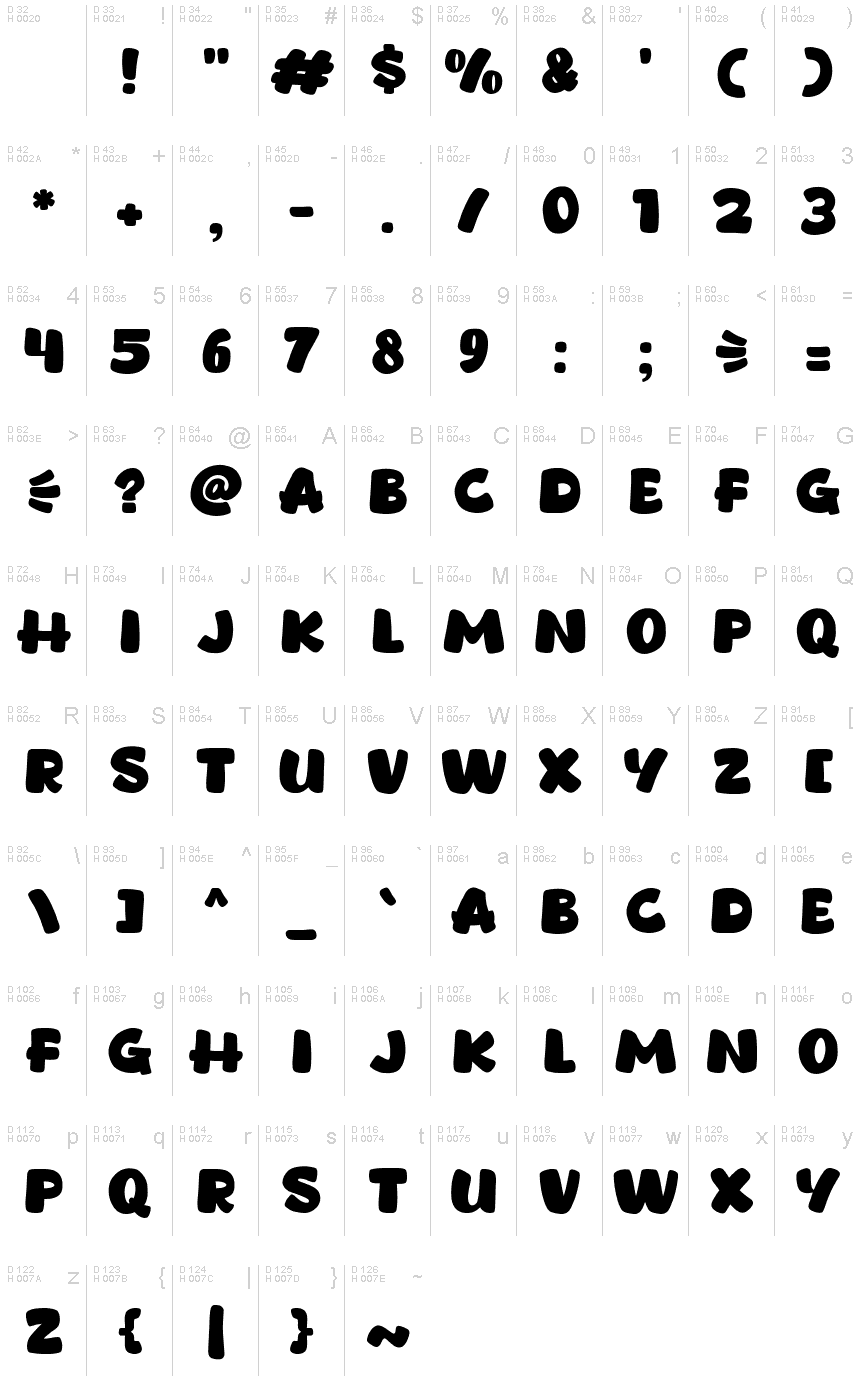
Cakeroll, designed by Khurasan, is an extra-bold display font that bursts with playful energy. Its cartoon style exudes a friendly and whimsical vibe, making it perfect for projects that aim to delight and engage. The font's rounded contours and hefty form lend it a tangible sweetness, reminiscent of delectable icing on your favorite baked treats.
Visually, Cakeroll's chunky letters are akin to soft pillows, offering a tactile aesthetic that can add depth and warmth to any design. Whether used in children’s books, animated movie titles, or branding for confectioneries or casual eateries, this font brings an element of fun without sacrificing readability.
With its charming appearance, Cakeroll stands out as an excellent choice for those seeking a typeface with personality and presence. It is sure to make any message pop off the page or screen and capture the imagination of viewers of all ages.